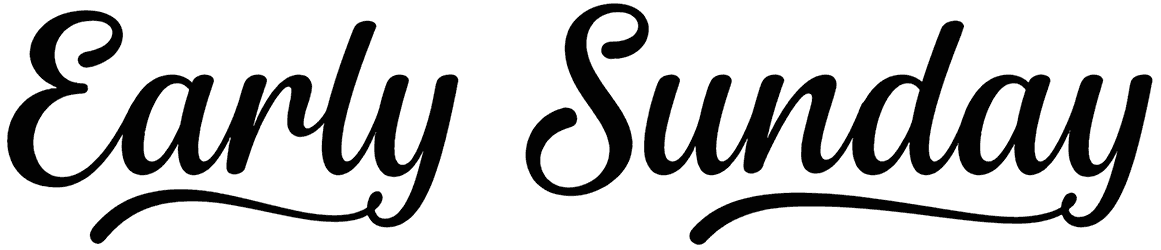
Anthony Bennett Font
Just once, you need to try Anthony Bennett to see how this font would give a joyful and cheerful sense to your typography. This font is a combination of both romantic fonts and cursive fonts, which makes it perfect for any job.
With a full collection of all the characters, aside from being a bit unreadable, you don’t need to worry about your projects because it has your back. This is only one example of the freebies that Resource Boy can offer you.
Designed by: Kong Font